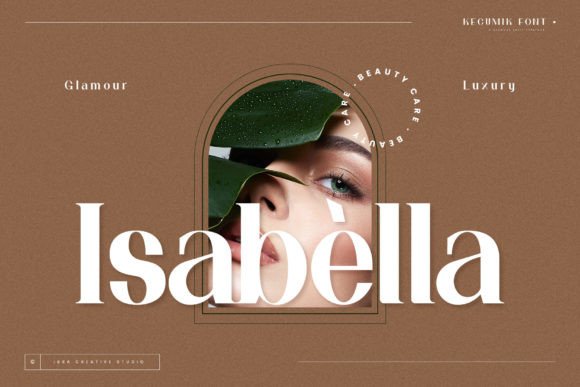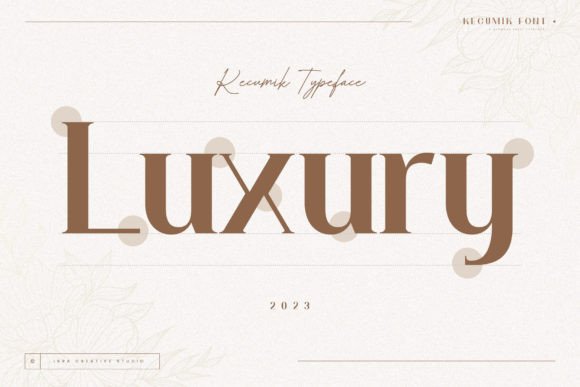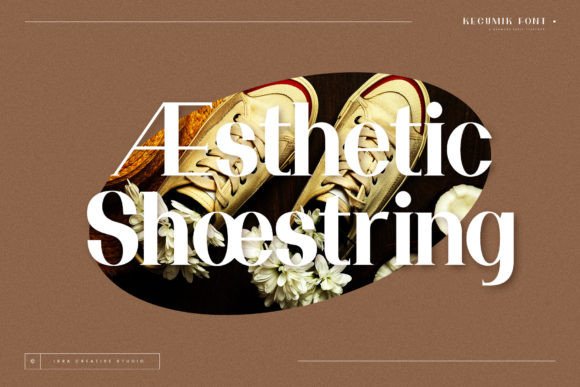
Introduction to Kecumik Font
Have you ever found yourself scrolling through a design blog, and suddenly, a font catches your eye? For many designers, it’s a moment of pure excitement and inspiration. For me, that moment came when I stumbled upon the Kecumik Font, a stunning Glamour Serif typeface that effortlessly blends elegance with modern sophistication.
As a designer, I know how crucial it is to have a reliable design resource that can elevate our creative projects. The Kecumik Font is more than just a beautiful typeface – it’s a high-quality design asset that can add a touch of glamour to any project. With its intricate details and refined strokes, it’s an ideal choice for designers who want to create a timeless and sophisticated look.
Whether you’re working on a free download or a paid project, the Kecumik Font is sure to impress. Its transparent background and crisp lines make it perfect for a variety of design applications, from branding and advertising to editorial and publishing.
Key Features of Kecumik Font
- High-quality design for creative projects, ideal for use in digital art and graphic design.
- Supports a wide range of languages, making it a versatile design tool for international projects.
- Unique, hand-crafted design aesthetic, setting it apart from more generic font options.
Honest Review: Kecumik Font
As a designer, I’m always on the lookout for high-quality design resources to elevate my creative projects. Recently, I stumbled upon the Kecumik Font, and I’m excited to share my honest review with you.
- Unique Design: The Kecumik Font boasts a distinctive and modern design that’s perfect for adding a touch of personality to your creative project.
- Transparent Background: The transparent background option allows for seamless integration with various design elements, giving you more flexibility in your design.
- Limited Character Set: The Kecumik Font has a relatively limited character set, which may not be ideal for complex typography projects.
- Not Ideal for Headlines: While the font looks great in body text, it may not be the best choice for headlines or titles due to its subtle design.
Overall, I’m impressed with the Kecumik Font’s unique design and free download option. However, its limitations may not make it the go-to choice for every design project. Nevertheless, it’s definitely worth exploring as a design resource for your creative project.
Kecumik Font is ideal for creative projects that require a high-quality, unique font. It’s perfect for designers who want to add a touch of sophistication and elegance to their work.
Kecumik Font is ideal for:
- Wedding invitations
- Business cards
- Menu designs
- Brochures
Tips for Getting the Most Out of Kecumik Font
To get the most out of Kecumik Font, use it on a transparent background to create a sleek and modern design. Experiment with different font sizes and styles